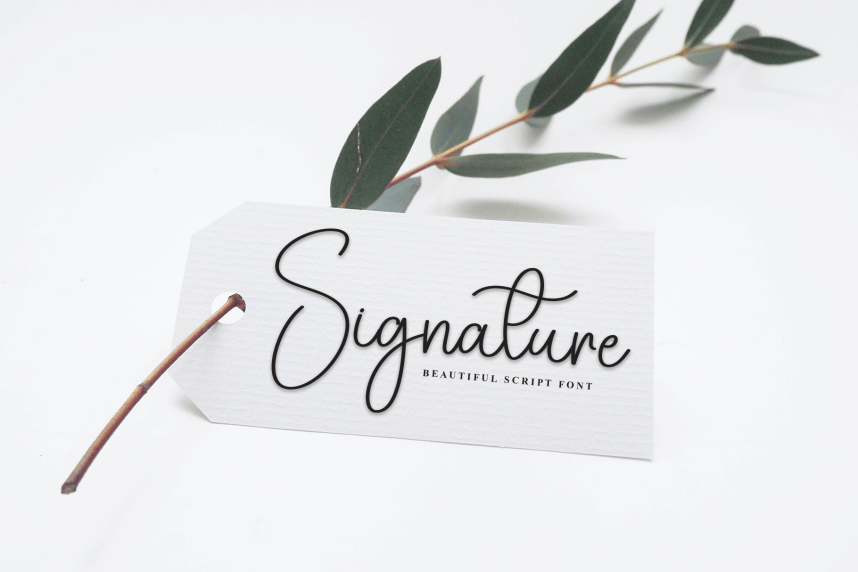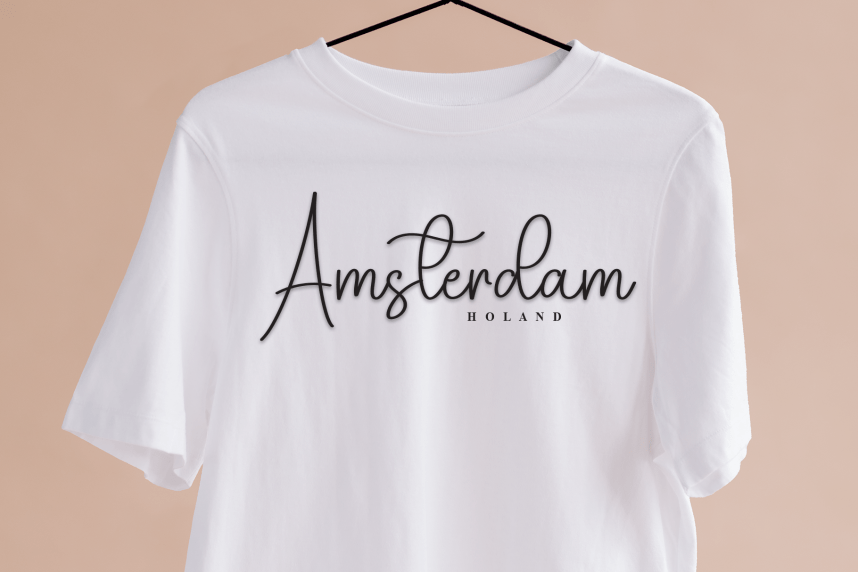
Beauty Gigerbread – Elegant Script Handwritten Font
Beauty Gigerbread – Elegant Script Handwritten Font, special creative products for you, our products will give you an extraordinary experience. the latest style letters are perfect for wall displays, wedding invitations, social media post logos, advertisements, product packaging, product designs, labels, photography, watermarks, invitations, stationery, and any project that requires taste handwriting.